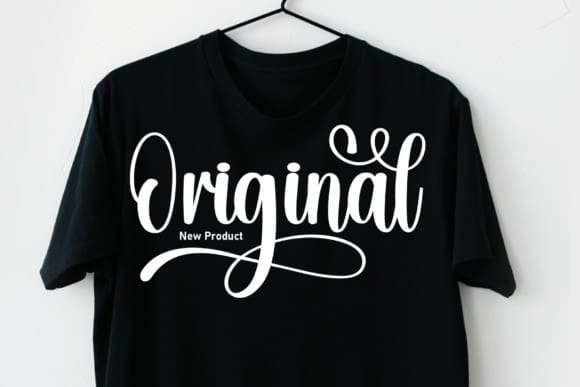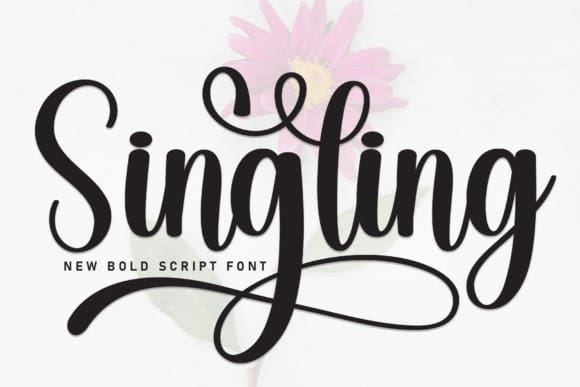
Singling Script Font
Singling Script Font is a sweet and friendly handwritten font. Add it to your designs and watch them come alive. It is suitable for use on invitations, cards, watermarks, social media and more.